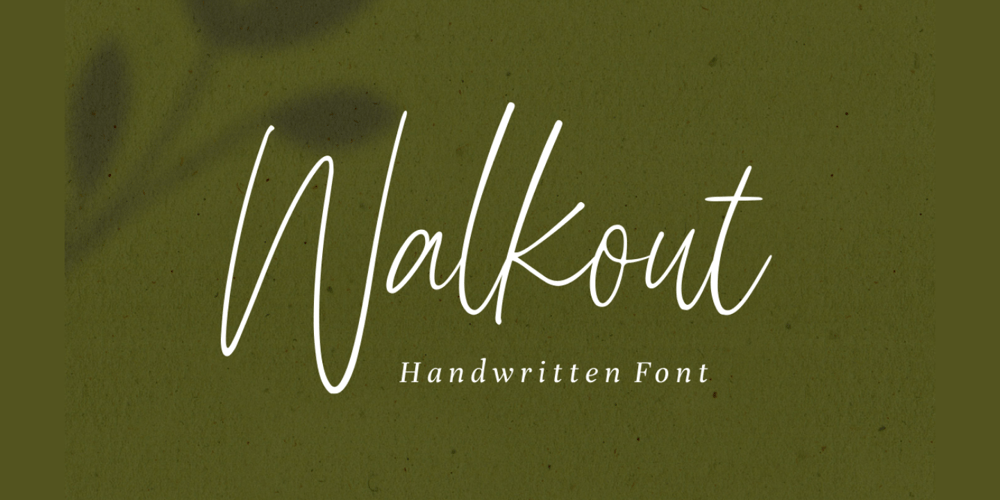
Walkout
Walkout font
Walkout Font Family was designed by Muhamad Yusron Billah and published by Sronstudio. Walkout contains 1 styles and family package options. introducing Walkout – Handwritten FontWalkout is a natural handwritten font, this font Is perfect for logo, invitation, stationery, wedding designs, social media posts, advertisements, product packaging, product designs, label, photography, watermark, special events or anything.Walkout comes with full set of uppercase and lowercase letters, multilingual symbols, numerals, punctuation.If you have any questions please don’t hesitate to drop me a message :)Thank You, Sronstudio